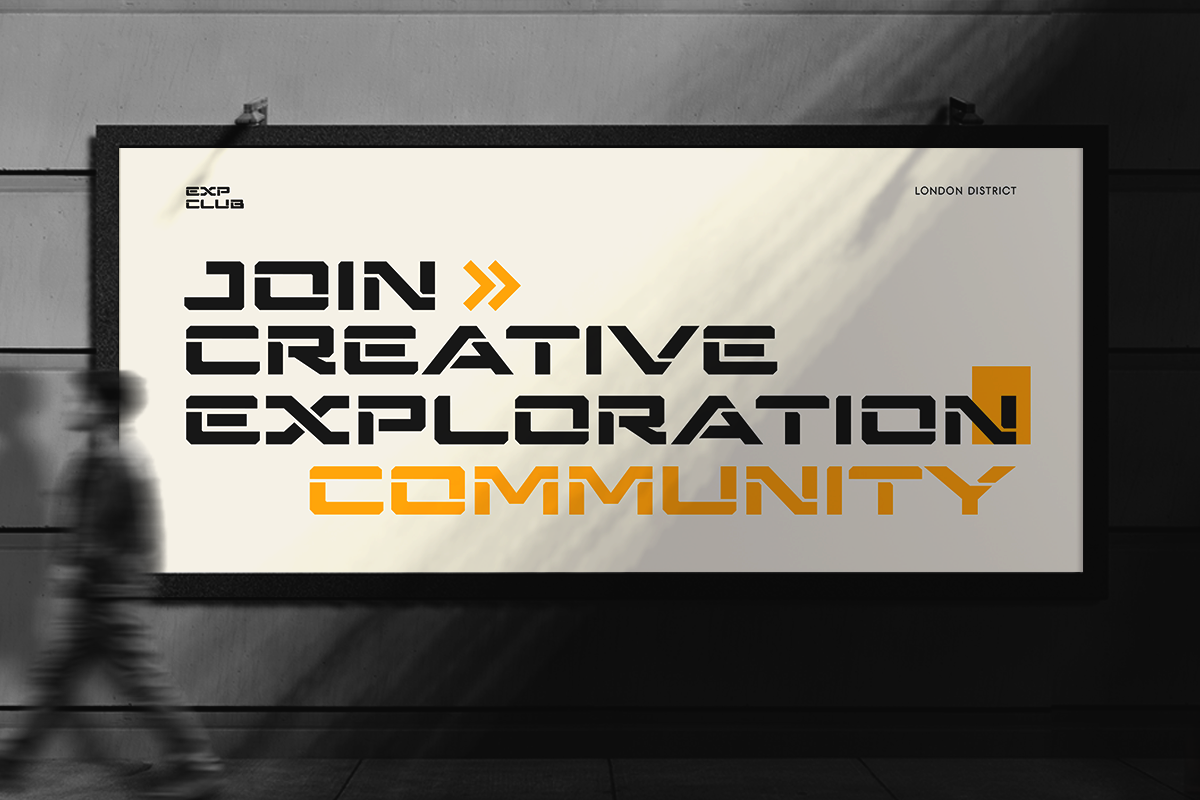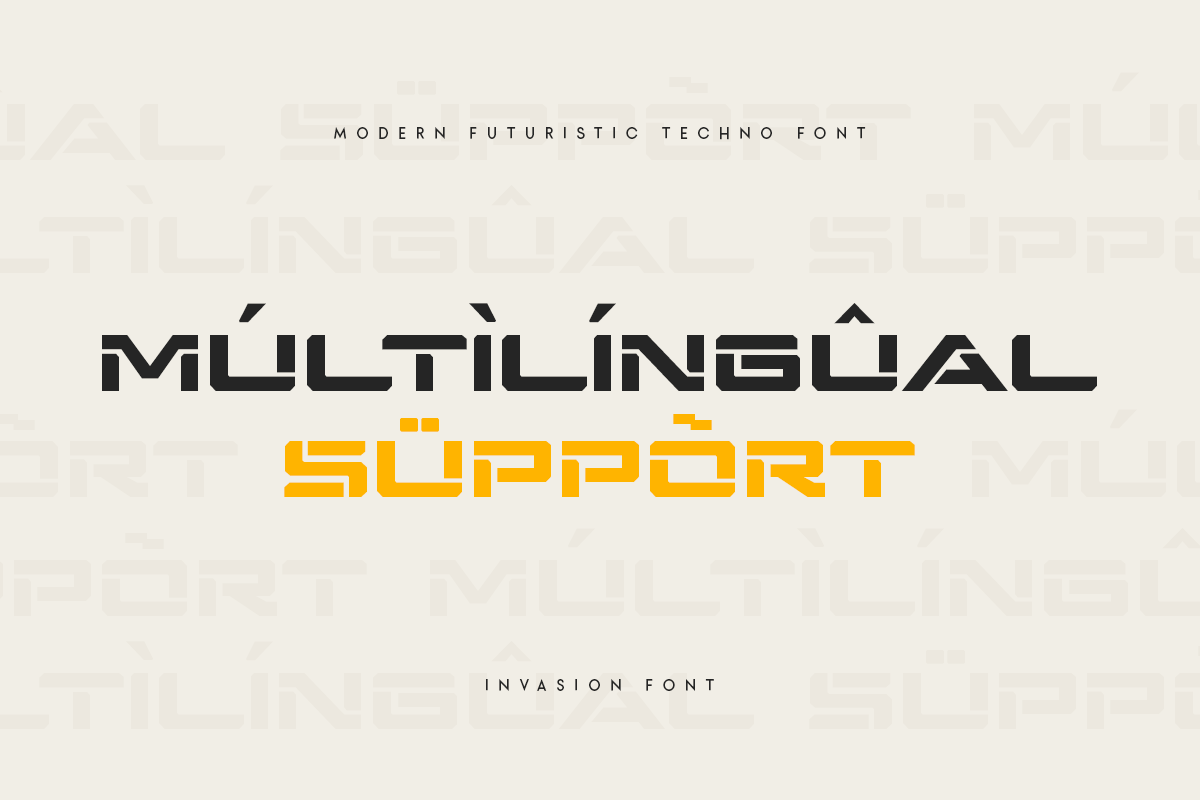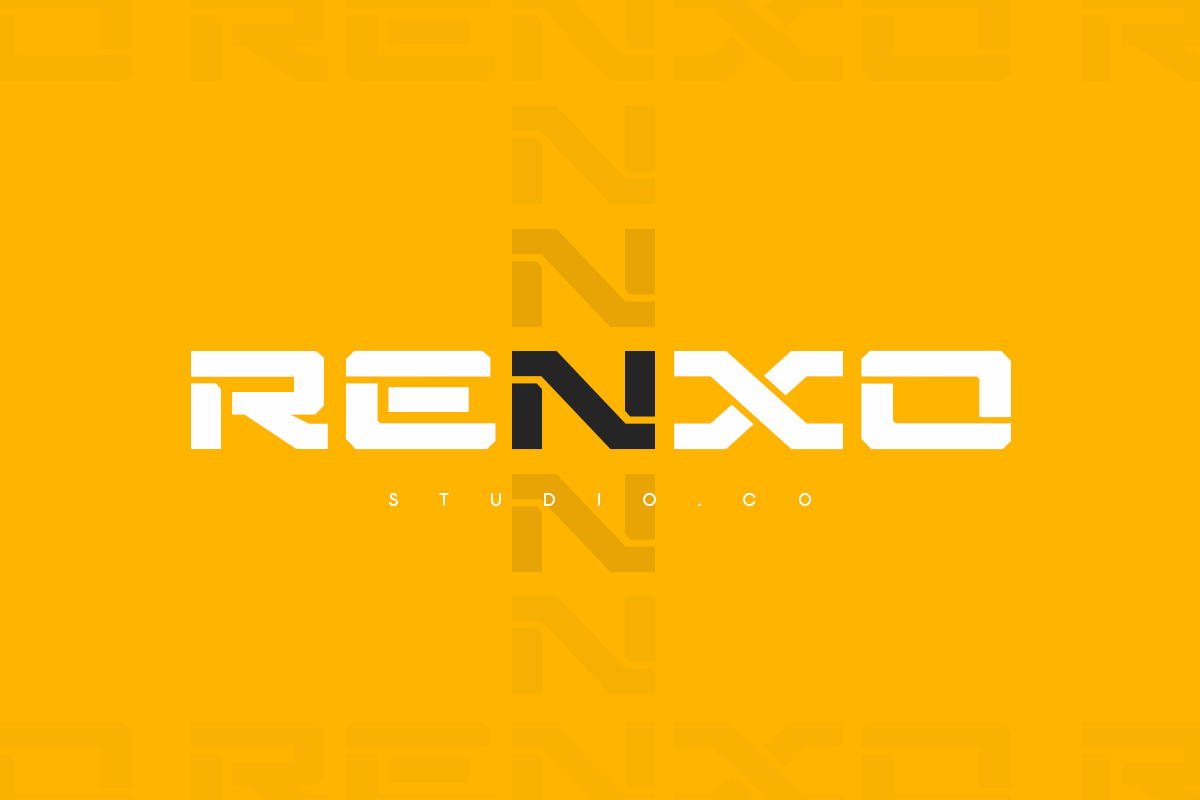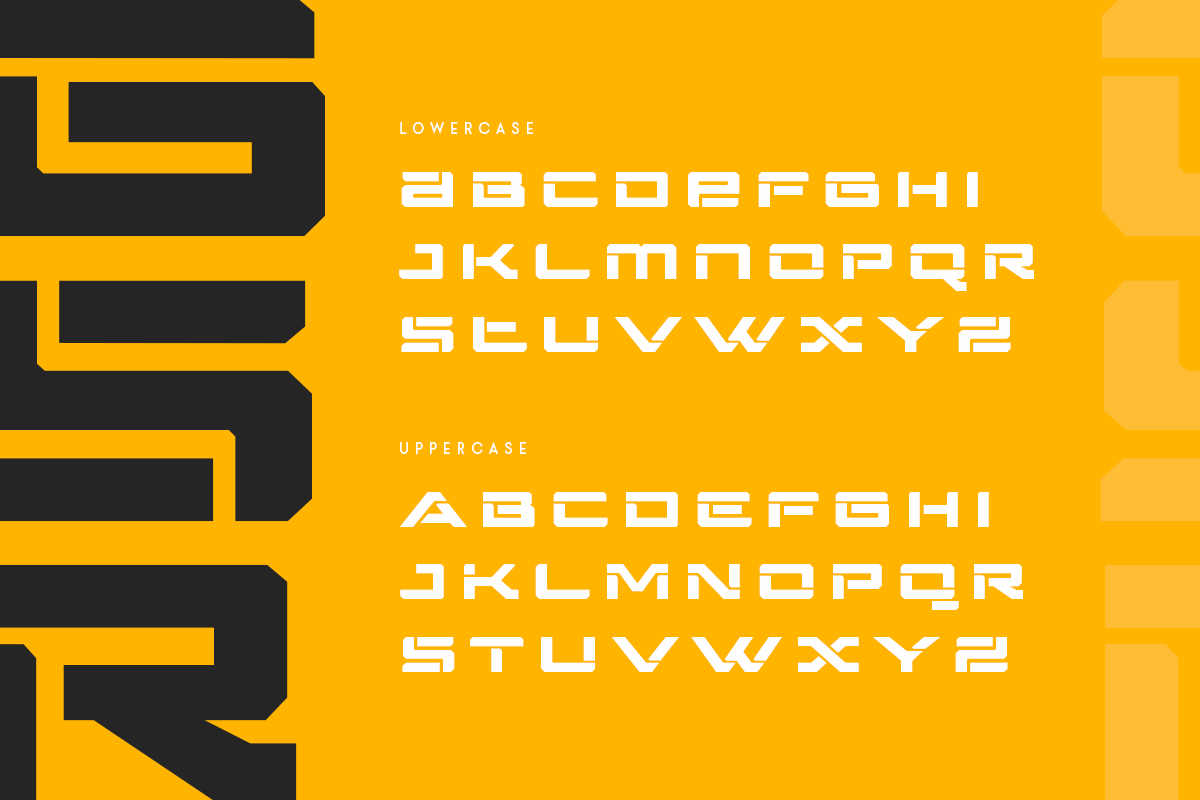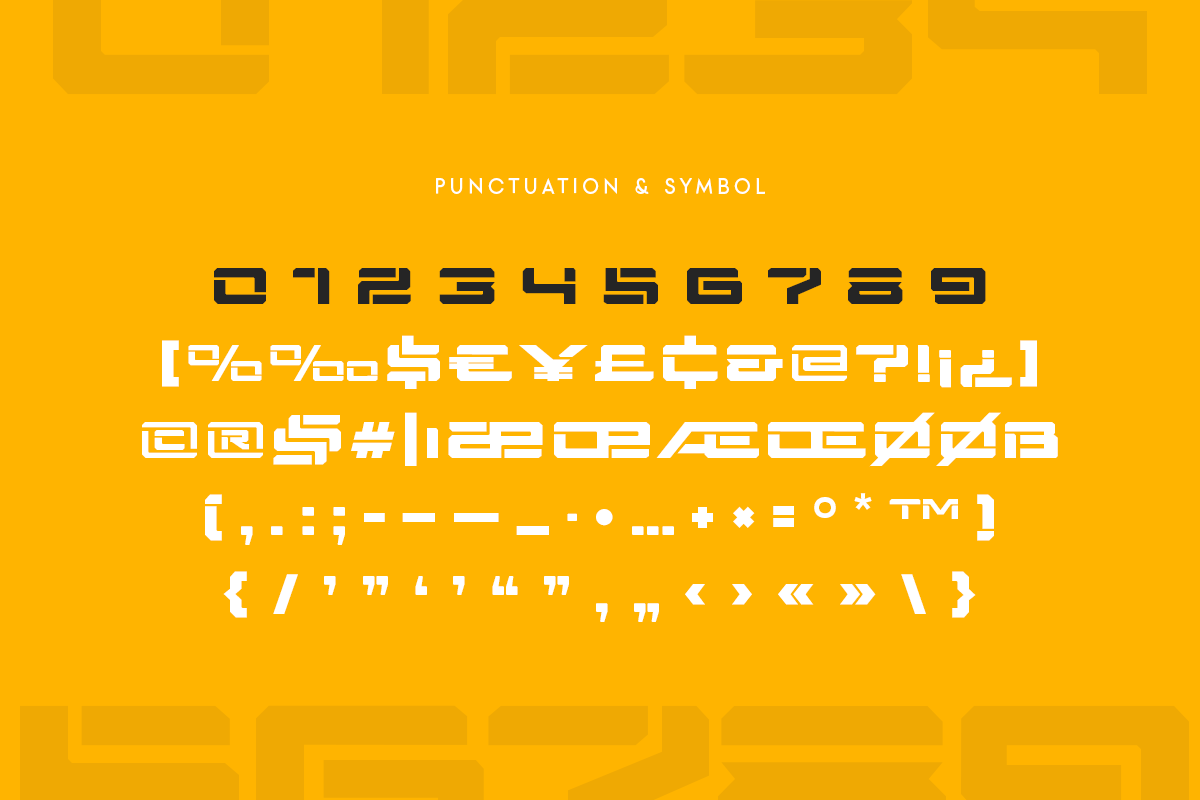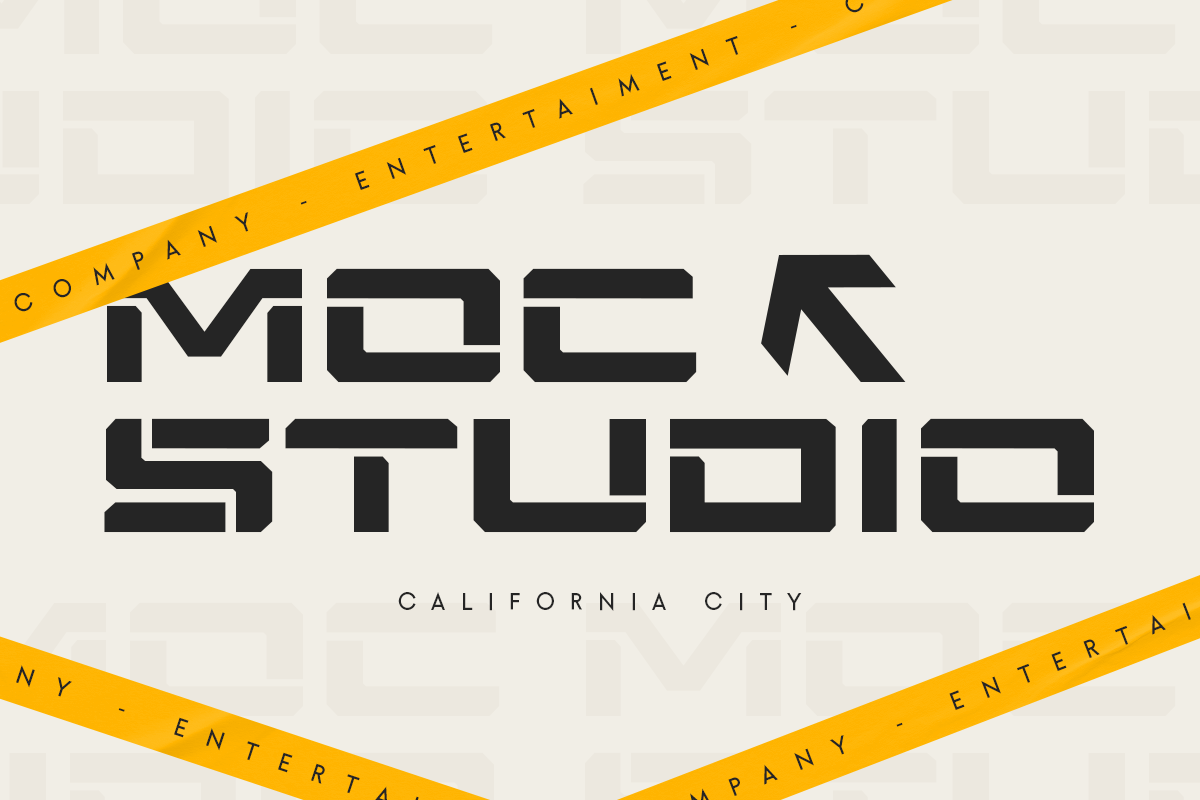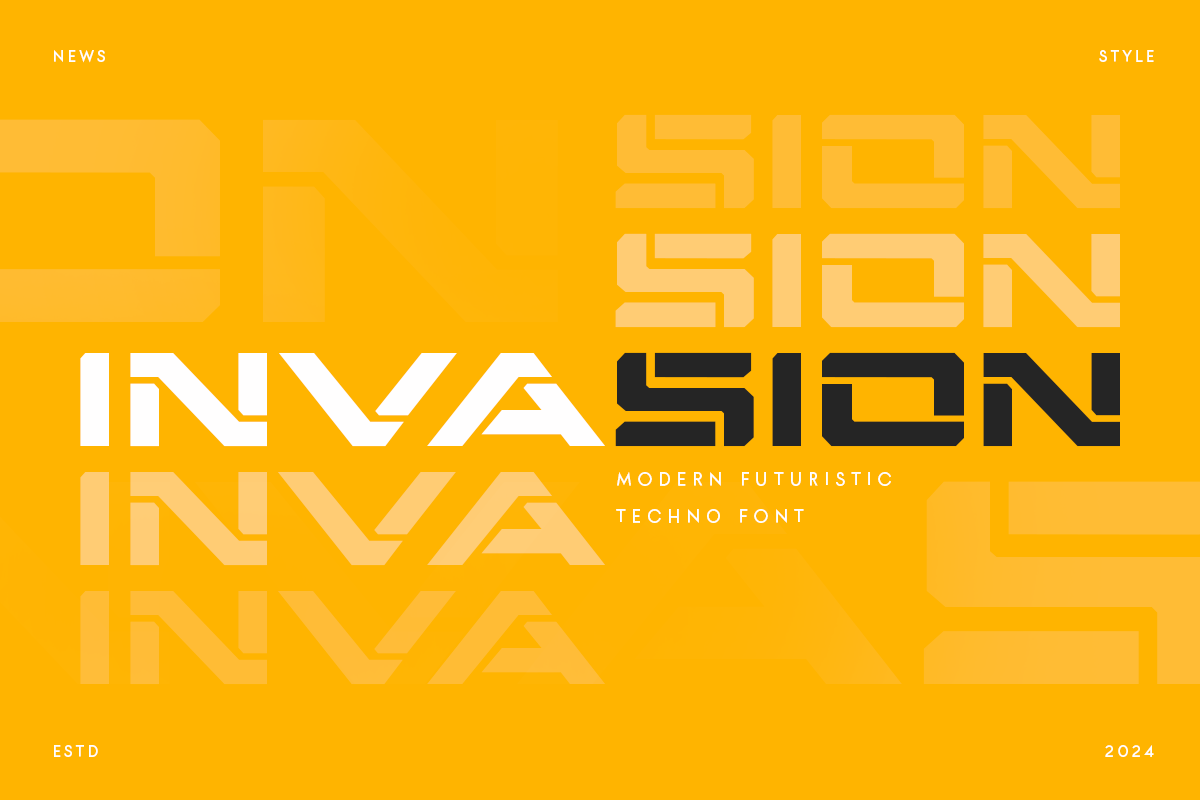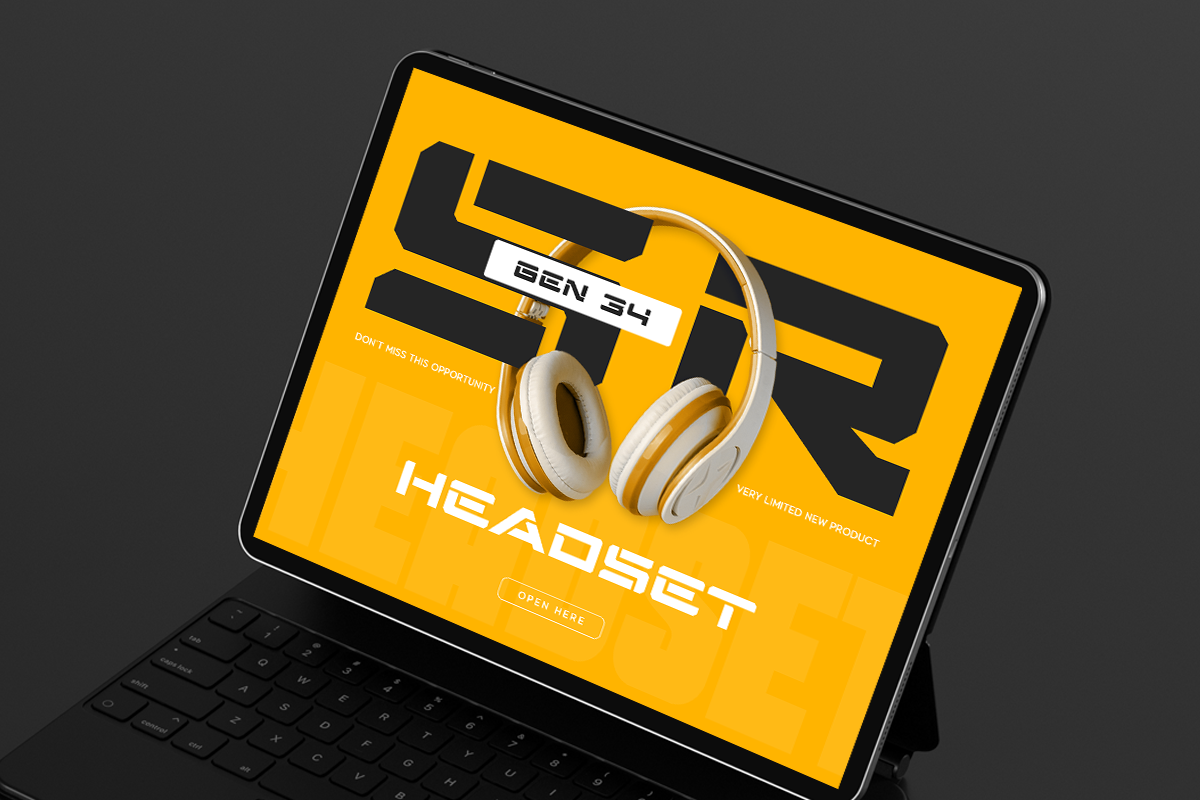
Invasion - Futuristic Techno Font
Invasion Modern Futuristic Techno Font is a Modern Futuristic font are prepared special for Technology, Modern, and Futuristic design needs, that created special for Logo, Title and more stand out typography for futuristic and sci-fi. It's so perfect to add your style and headline overview for technology, film, space, and futuristic theme. And specially for this font, we've ready for modern feels so enjoy to create any project that will show your main idea out.
Invasion Modern Futuristic Techno Font ready with:
- Ready with All-Caps Characters
- Preview as a inspirations that you can do with Invasion font
- Perfect for Futuristic Design